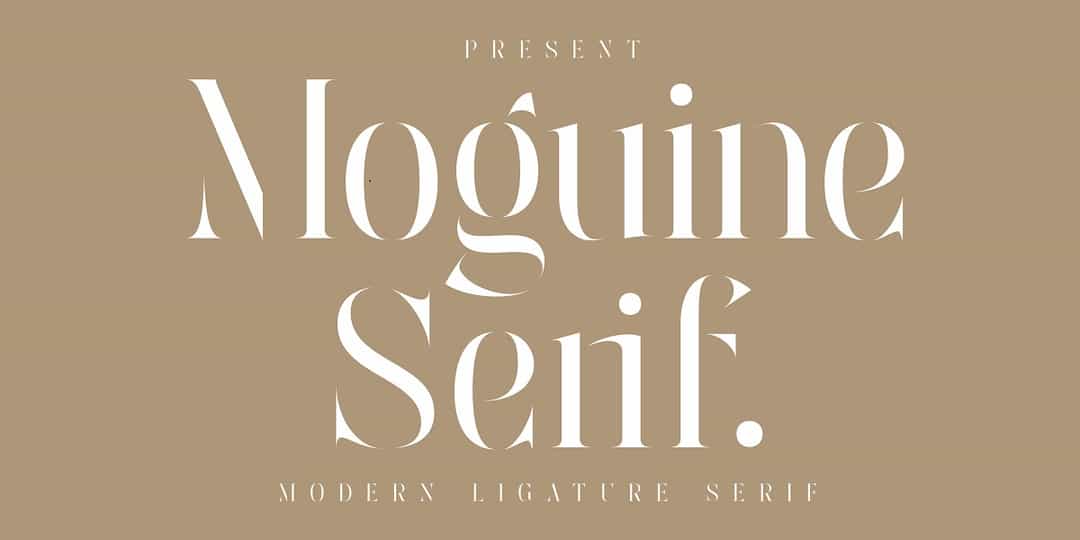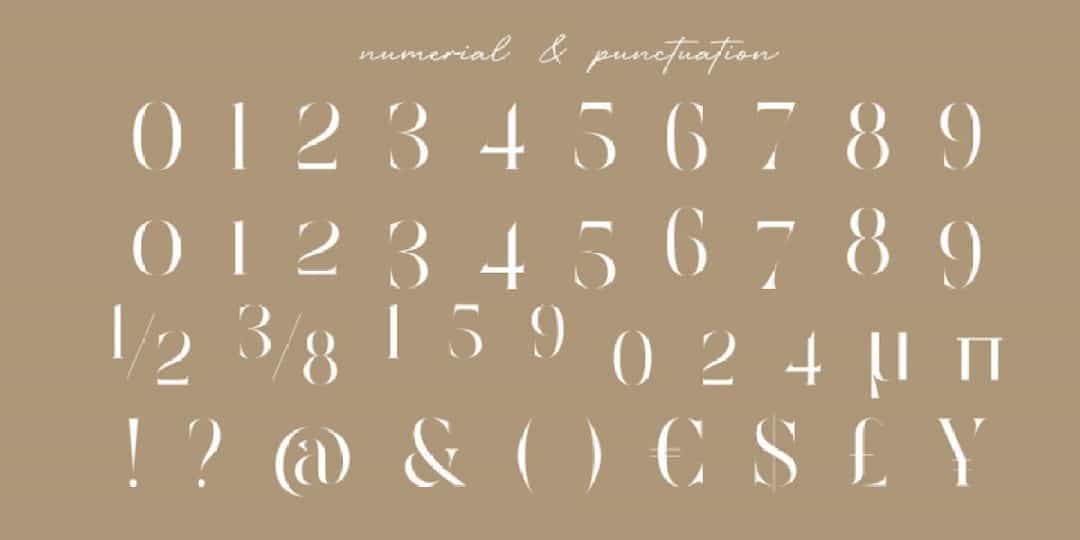
Moguine Serif is an elegant yet versatile serif font family designed with care and passion; boasting hair-like lines that fade out and weighted vertical strokes, Moguine Serif is ideal for headlines with its neutral yet elegant style and weighted vertical strokes that give this type of font its characteristic modern aesthetic. Ideal for writing short lines or quotes that require neutral yet elegant writing style; Moguine Serif offers classic logo appearance while remaining contemporary!